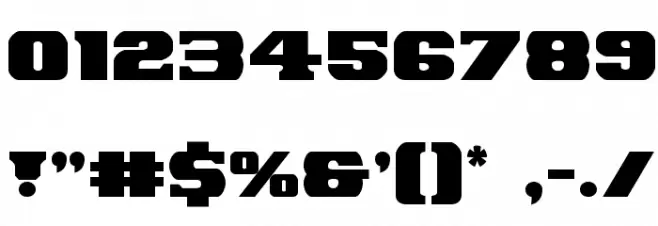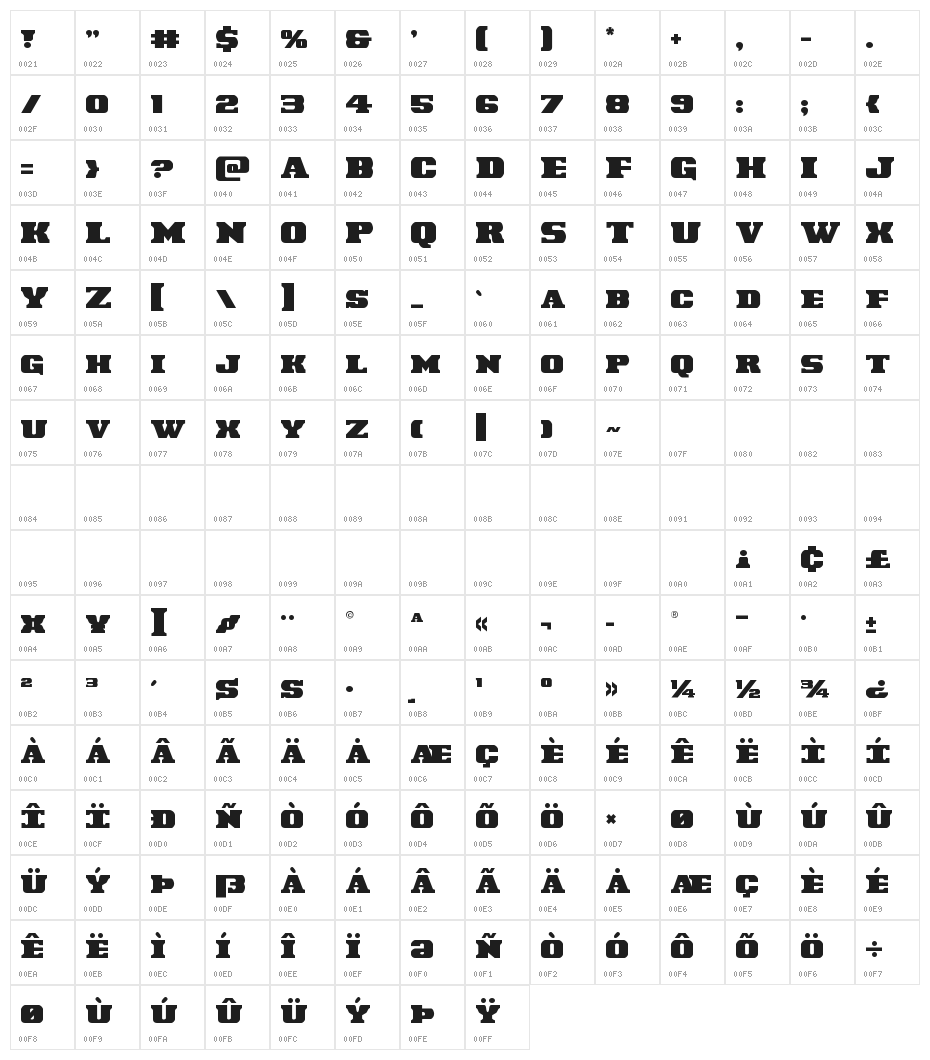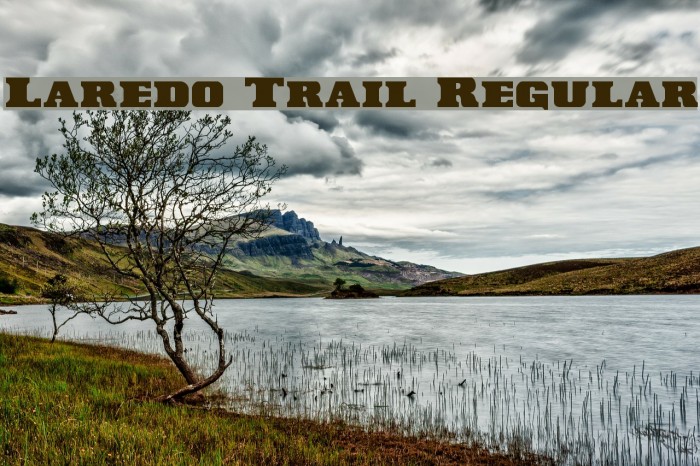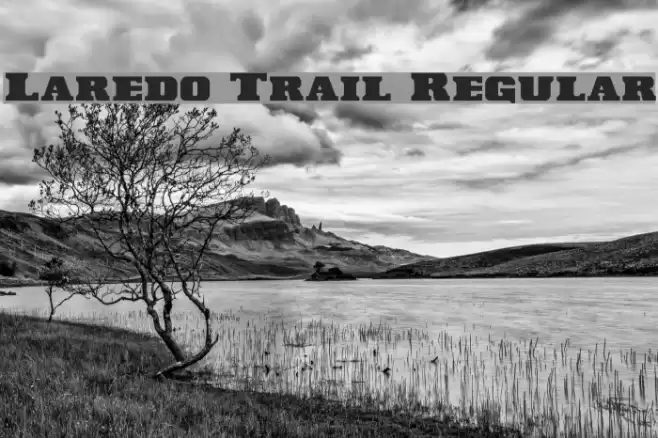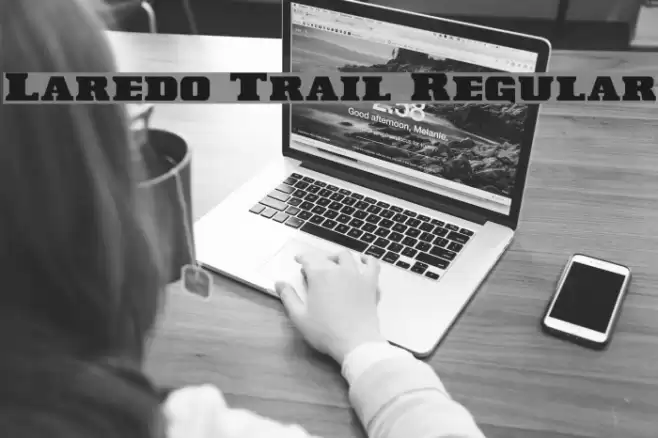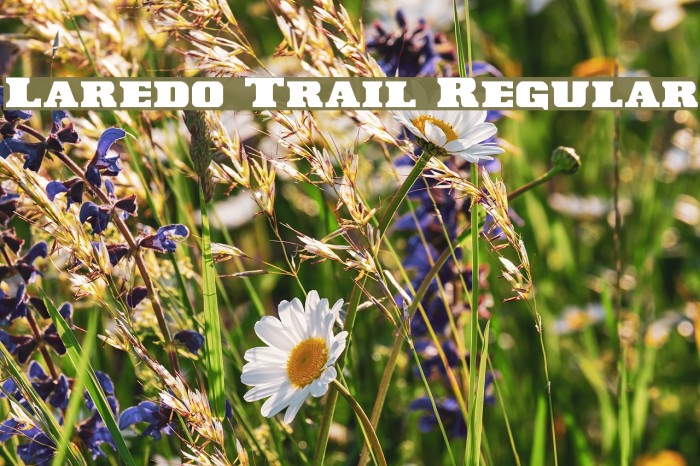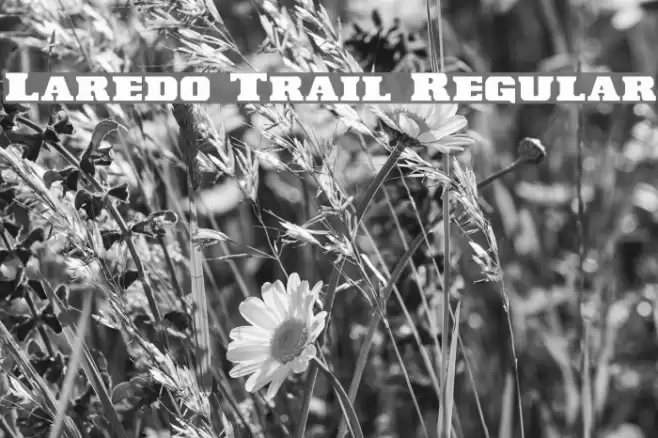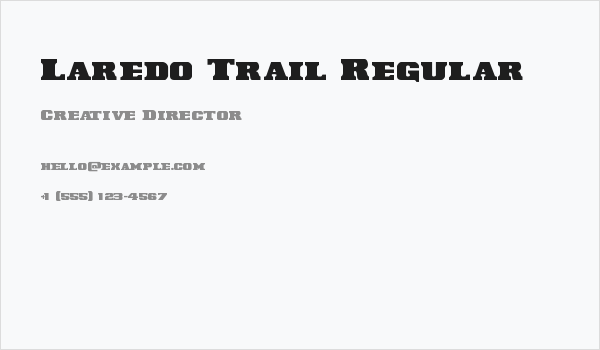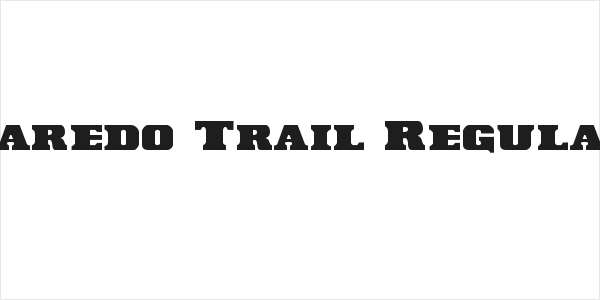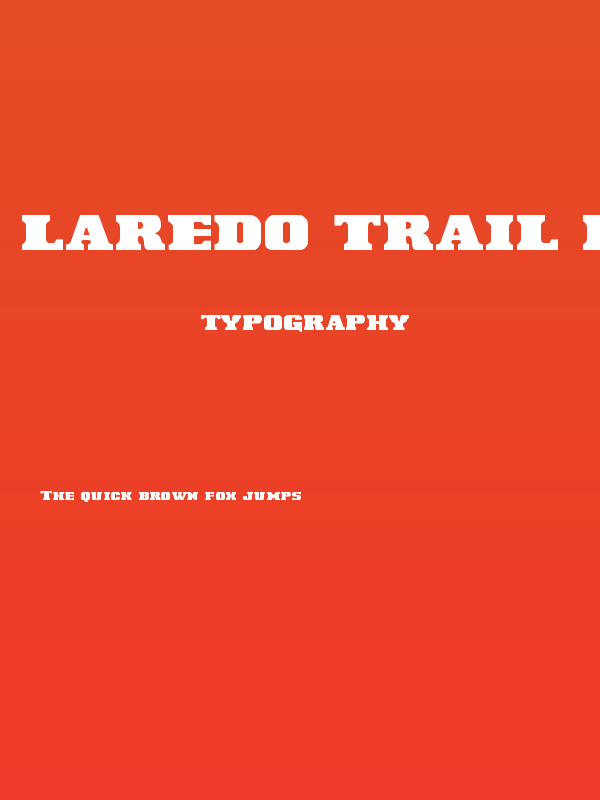
Laredo Trail Regular Font
Laredo Trail Regular Description
This font features a bold and robust design with thick, blocky characters that convey a sense of strength and stability. The uppercase letters are particularly striking, with a uniform height and width that create a cohesive and powerful appearance. The numerals and special characters maintain this boldness, ensuring consistency across all text elements. The font's style is reminiscent of traditional Western or vintage themes, making it ideal for projects that require a strong, impactful visual presence.
| Proposed Projects | Ideal for posters, signage, branding, and any project requiring a strong, vintage look. |